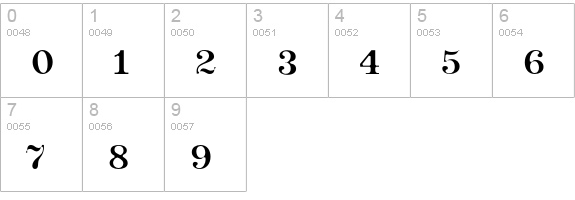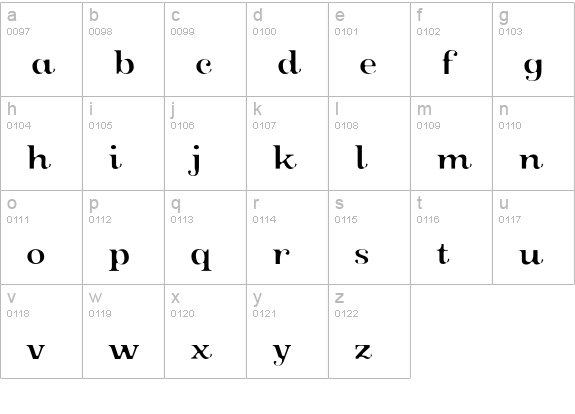
Oxtail Font Details
Oxtail font is a unique and stylish typeface that exudes elegance and sophistication. With its intricate details and sleek lines, this font is perfect for adding a touch of luxury to your designs. The eye-catching curves and sharp edges of Oxtail font make it stand out from the crowd, while its versatility allows it to be used in a variety of design projects. The best part? Oxtail font is completely free to download at FontsMarket.com! Whether you're working on a branding project, designing a website, or creating eye-catching graphics, Oxtail font is sure to elevate your work to the next level. Don't miss out on this amazing opportunity to enhance your designs with this stunning font. Download Oxtail font today and let your creativity shine!